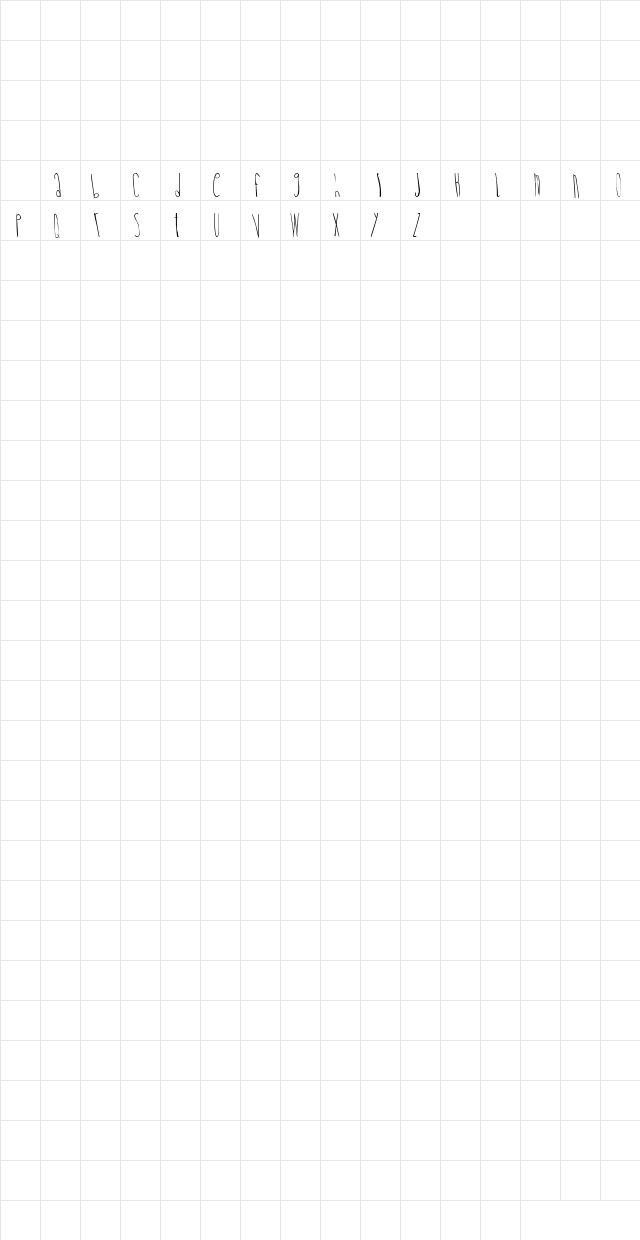
Complete you're not a graphic designer Regular glyph index. Displaying only characters natively supported by you're not a graphic designer Regular font.
you're not a graphic designer is a composed and adaptable typeface that performs quietly and consistently across a wide range of design contexts.